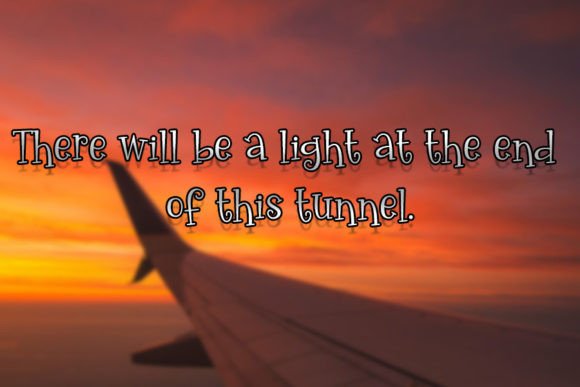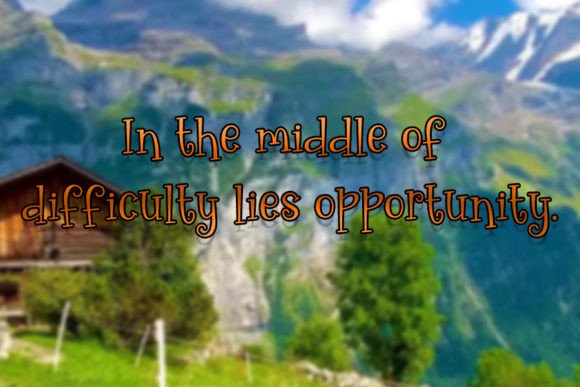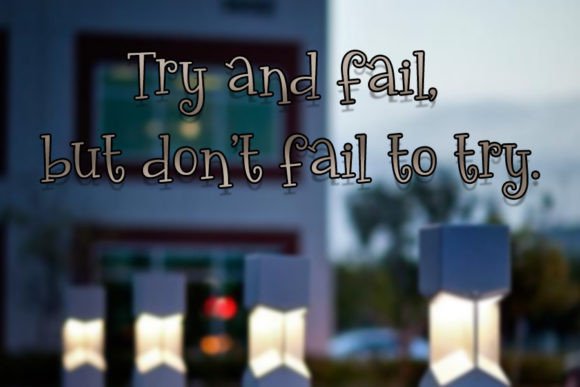
Introducing Contract Font: The Playful Serif Font to Elevate Your Designs
Are you tired of using the same old fonts in your designs? Look no further! Contract Time is a delightful serif font that can add a touch of joy and playfulness to your creative projects. This adorable font is perfect for designers and crafters who want to make their designs stand out from the crowd.
What is Contract Font?
Contract Font, also known as Contract Time, is a unique serif font that boasts a charming and whimsical feel. Its distinctive design makes it an excellent choice for a wide range of creative projects, from wedding invitations and product packaging to birthday cards and branding projects.
Key Features of Contract Font
- Playful and Adorable: Contract Font has a fun and lively personality that can add a touch of whimsy to your designs.
- Serif Font: The font features classic serifs that give it a traditional and elegant feel.
- Versatile: Contract Font can be used for a variety of creative projects, from digital designs to print materials.
- Easy to Read: Despite its playful nature, Contract Font remains easy to read, making it perfect for body text and headlines.
Creative Ways to Use Contract Font
Contract Font is an incredibly versatile font that can be used in a multitude of creative projects. Here are some ideas to get you started:
- Wedding Invitations: Add a touch of elegance and playfulness to your wedding invitations with Contract Font.
- Product Packaging: Make your product stand out on store shelves with Contract Font’s unique and eye-catching design.
- Birthday Cards: Create personalized and adorable birthday cards with Contract Font.
- Branding Projects: Use Contract Font to create a cohesive brand identity that’s both playful and professional.
- Social Media Graphics: Add a touch of whimsy to your social media graphics with Contract Font.
- Stationery: Create custom stationery sets with Contract Font that are perfect for everyday use.
Benefits of Using Contract Font
Contract Font offers a range of benefits that make it an excellent choice for designers and crafters. Here are some of the advantages of using Contract Font:
- Unique Design: Contract Font’s distinctive design sets it apart from other fonts, making your designs more memorable.
- Time-Saving: With Contract Font, you can create professional-looking designs in no time, thanks to its easy-to-read and versatile nature.
- Customizable: Contract Font can be customized to fit your brand’s unique style and personality.
Tips for Using Contract Font Effectively
To get the most out of Contract Font, here are some tips to keep in mind:
- Pair with Other Fonts: Contract Font pairs well with other fonts, so don’t be afraid to experiment with different combinations.
- Use for Headlines and Body Text: Contract Font is suitable for both headlines and body text, making it a versatile font solution.
- Experiment with Colors: Contract Font looks great in a range of colors, so don’t be afraid to try out different color schemes.
Contract Font is a playful and adorable serif font that’s perfect for designers and crafters who want to add a touch of joy to their designs. With its unique design, versatility, and ease of use, Contract Font is an excellent choice for a wide range of creative projects. Whether you’re creating wedding invitations, product packaging, or branding projects, Contract Font is sure to elevate your designs and make them stand out from the crowd.